21 Romantic Fonts for Modern Wedding Invitations 2026
As a designer, I believe the right font can instantly set the tone for a wedding invitation and make every detail feel more meaningful. This curated collection of 21 gorgeous romantic fonts for 2026 features typefaces I personally use to create elegant, timeless, and visually captivating wedding designs.
From graceful handwritten scripts to sophisticated serif fonts, each selection was chosen to bring beauty, charm, and refinement to invitations, save-the-dates, menus, bridal branding, and complete stationery suites. These fonts help create a romantic atmosphere while maintaining a polished and professional look.
I carefully select typography that tells a story and enhances the overall aesthetic of a wedding, helping every design feel unique, memorable, and effortlessly elegant.
Bright Darling Duo Font
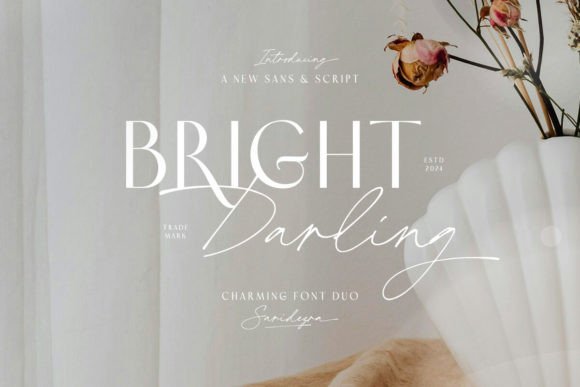
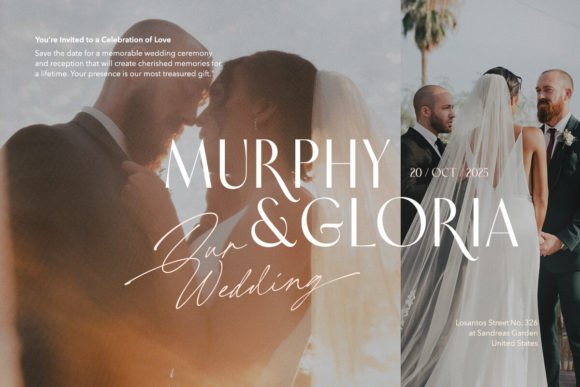
Bright Darling is an elegant font duo that combines a sophisticated sans serif with a graceful script font, creating the perfect balance of modern simplicity and handcrafted charm. I love using it for branding, wedding invitations, logos, packaging, editorial layouts, and social media graphics because it feels both timeless and contemporary. This stylish font pairing adds a luxurious, polished look that instantly elevates any creative project.
Bellarin Font
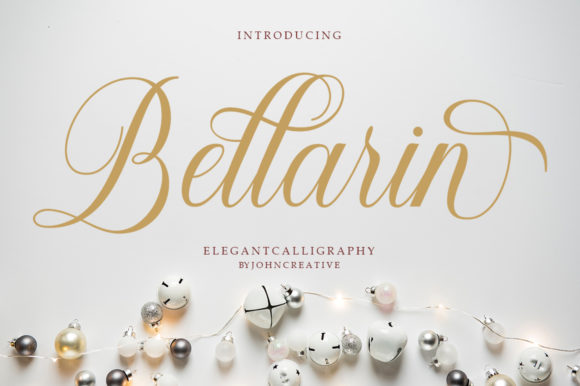
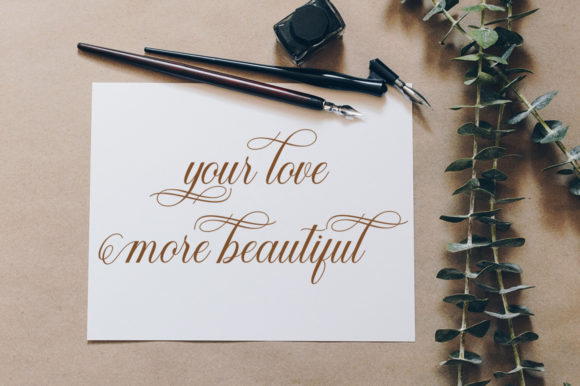
Bellarin is an elegant and flowing script font designed to add a refined, personal touch to any creative project. Featuring smooth lines, a varied baseline, beautiful glyphs, and stylish alternates, it delivers a natural handwritten feel with modern sophistication. Perfect for thank you cards, quotes, greeting cards, logos, business cards, wedding stationery, and branding, Bellarin enhances designs with graceful charm and timeless beauty.
Ashley Southine Font
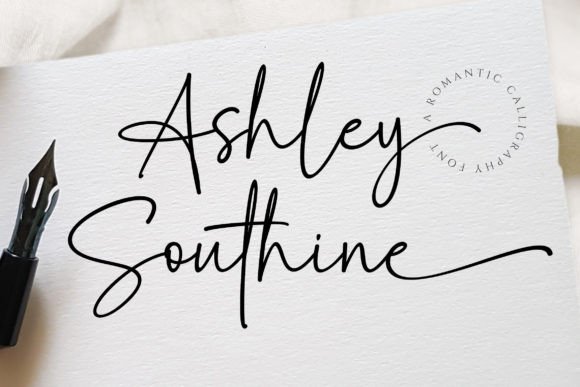
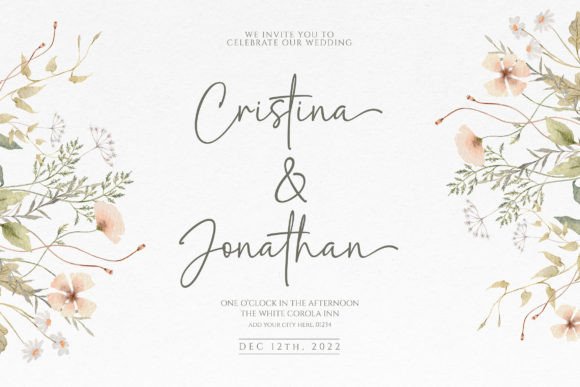
Ashley Southine is a beautiful handwritten script font that adds warmth, elegance, and personality to any creative project. I enjoy using it for wedding invitations, branding, logos, greeting cards, packaging, and social media graphics because its natural handwritten style feels soft and authentic. The flowing handcrafted strokes create a refined and personal look that makes every design feel stylish, inviting, and beautifully unique.
Breathine Font
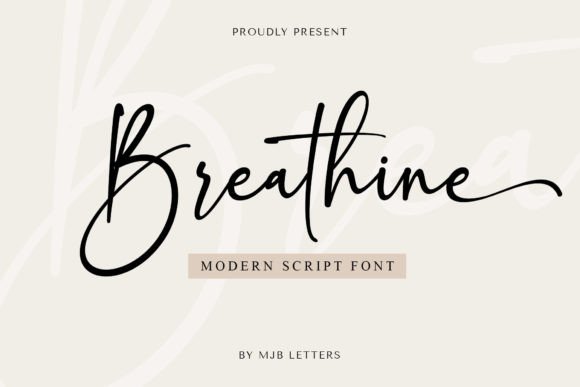
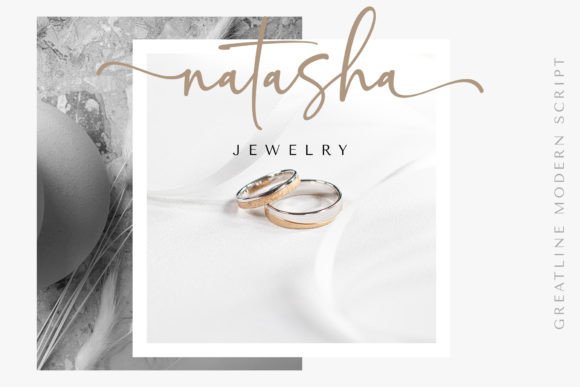
Breathine is a magical script font that blends elegance, creativity, and modern calligraphy into one beautiful typeface. I love using it for Instagram graphics, wedding invitations, branding, logos, DIY projects, and social media content because its flowing handwritten style feels graceful and artistic. The delicate curves and stylish lettering add a luxurious touch that makes every design look unique, sophisticated, and visually captivating.
Gastonia Script Font
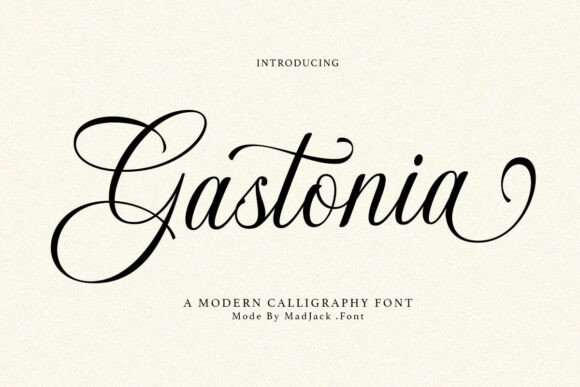
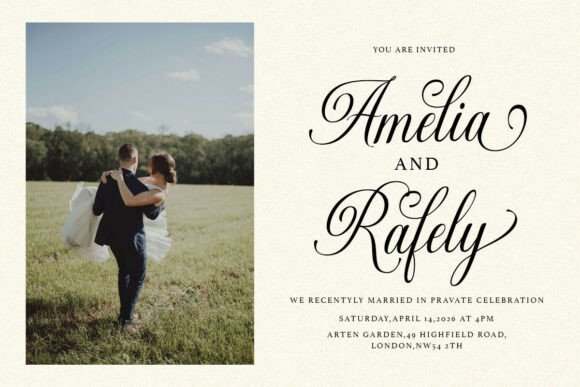
Gastonia is a luxurious modern calligraphy font that instantly brings elegance and sophistication into any design. I enjoy using it for wedding invitations, premium branding, editorial layouts, packaging, and logos because its flowing strokes and graceful curves feel timeless and refined. The romantic handwritten style adds a classy and artistic touch that makes every project look polished, memorable, and beautifully professional.
Delleya Font
Delleya is an elegant handwritten font that combines flowing cursive strokes with a modern, stylish character. I love using it for wedding invitations, branding, logos, packaging, greeting cards, and social media graphics because its graceful lettering feels both sophisticated and versatile. The beautiful swashes and handcrafted details create a refined look that makes every design feel personal, luxurious, and visually captivating.
Merlina Darling Font
Merlina Darling is a modern calligraphy script font featuring a beautifully connected heart-inspired design at the center of its letterforms. Crafted with high detail, it delivers a luxurious and romantic aesthetic perfect for elegant branding. Ideal for wedding invitations, logos, quotes, packaging, social media, and feminine design projects, this font adds charm, sophistication, and a graceful handwritten touch to any creative work.
Heart Font
Heart is a sweet and stylish handwritten font that instantly adds charm and personality to any design. I enjoy using it for wedding invitations, logos, branding, greeting cards, packaging, and social media graphics because its playful handwritten style feels modern and creative. The smooth lettering and artistic flair bring warmth and elegance to every project, making designs look unique, memorable, and beautifully crafted.
Glamour Font
Glamour is a fashionable script font that instantly adds elegance and luxury to any creative project. I love using it for branding, wedding invitations, logos, packaging, beauty designs, and social media graphics because its stylish handwritten lettering feels modern and sophisticated. The flowing curves and refined calligraphy details create a premium aesthetic that makes every design look polished, memorable, and effortlessly chic.
Arnitta Callina Font
Arnitta Callina is a fresh and elegant script font with a handcrafted calligraphy style that blends classic charm with modern sophistication. Perfect for branding, logos, wedding invitations, quotes, packaging, and social media design, it brings a refined and timeless feel to any project. Ideal for stylish typography, Arnitta Callina enhances creative work with graceful curves and authentic handwritten beauty.